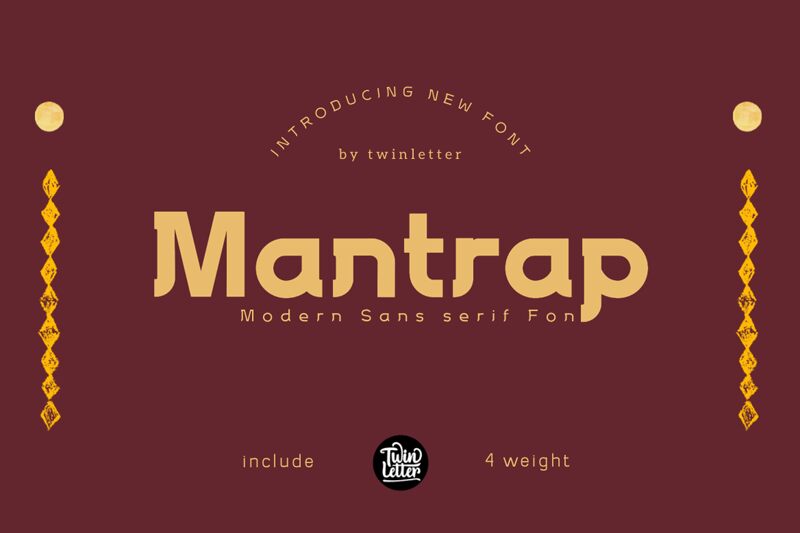
Mantrap-Bold
Mantrap -Bold font by Twinletter is a sans-serif all-caps typeface with clean, minimalist characters skillfully constructed using geometric forms. Each character features the same width as well as traditional letter proportions, making them instantly legible individually and in words. Closely laid counter forms lend visual interest to the font’s rigid structure.
Carefully selected characters make Mantrap - Bold a great addition to many contemporary uses such as digital interfaces and media, tech innovations and applications, online branding, advertising materials, science fiction posters and books as well as gaming.elements like logos icons etc. Its uses also extend to corporate applications such on business cards and more!